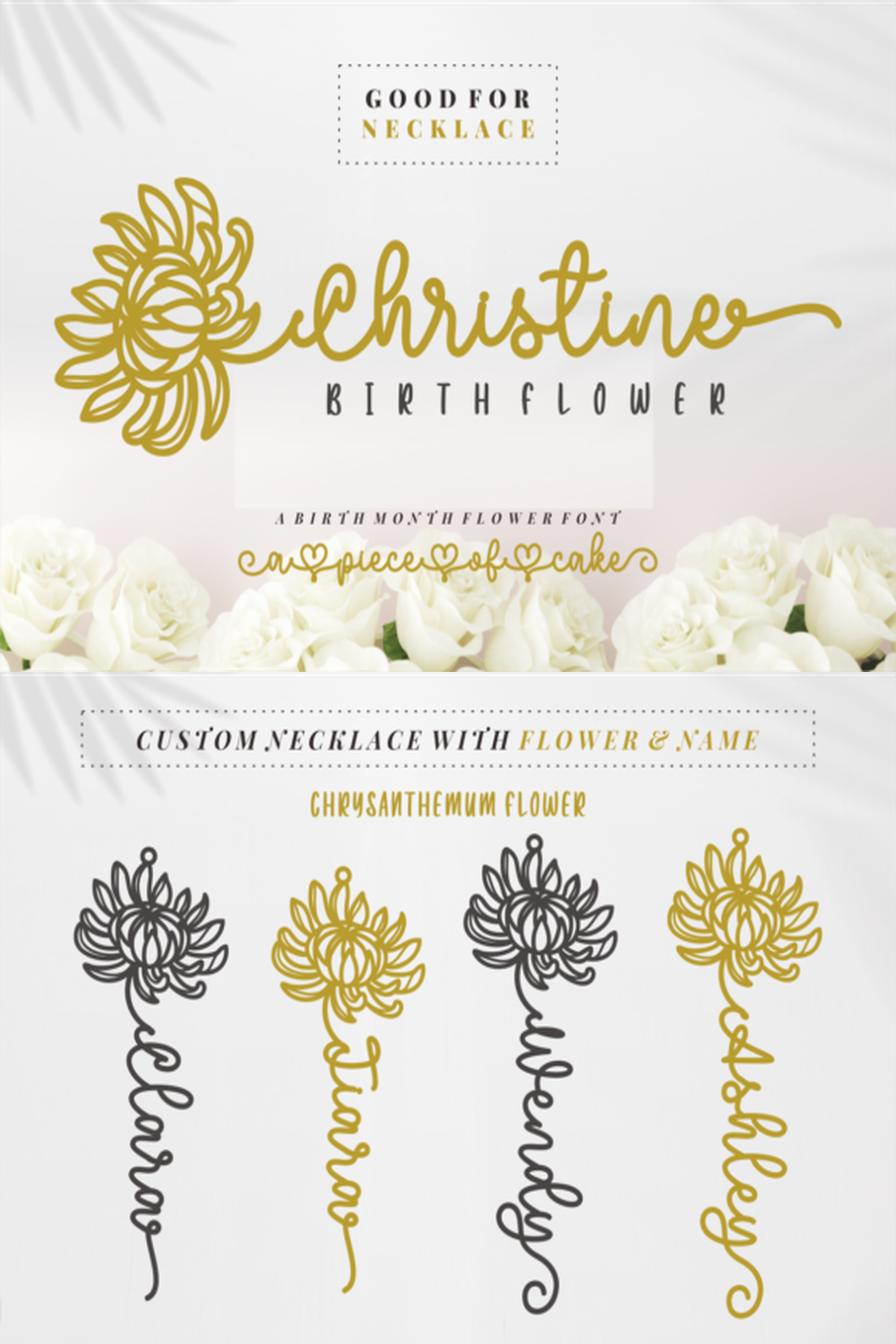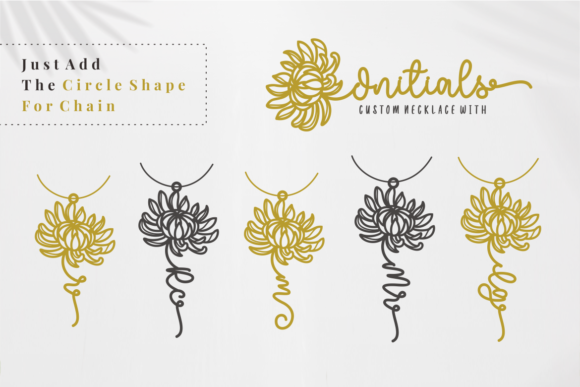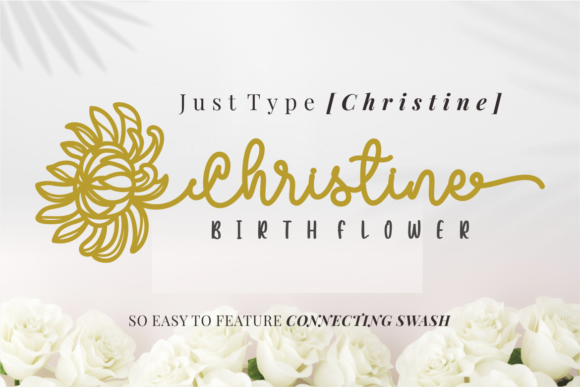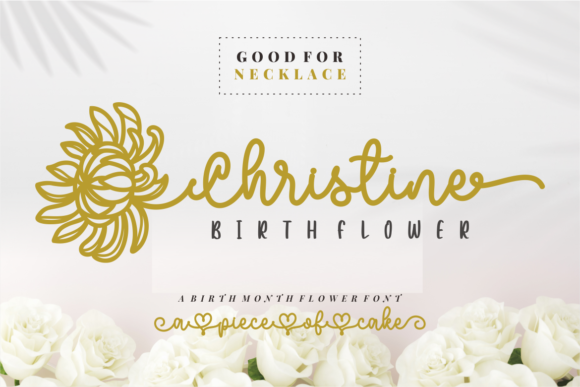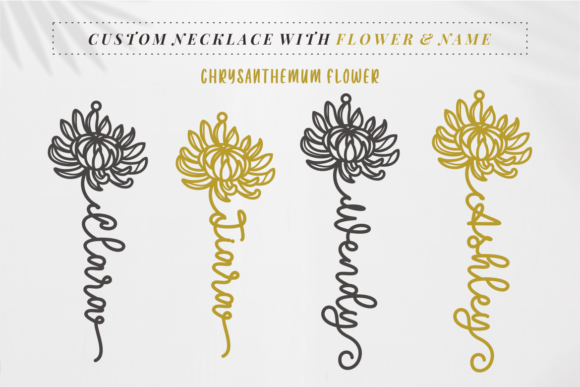
Christine Birth Flower Duo Font
About the Christine Birth Flower Duo Font
Explore the possibilities with Christine Birth Flower Duo Font, a font that offers both beauty and functionality. Christine Birth Flower Duo is a vintage styled script and sans serif font, carefully created with a touch of elegance. Whether you’re looking for fonts for Instagram or calligraphy scripts for DIY projects, this font will turn any creative idea into a true piece of art!
November birth flower
Christine Birth Flower Duo Font Usage Examples